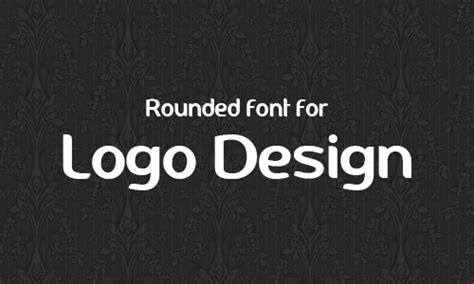
Modern Logo Font Best / 15 Elegant & Modern Fonts for Web Design | Elegant Themes Blog : This font couldn't be executed any better had i chiseled an ideal font from stone on the top of a mountain.. It's completely free to use with your personal and commercial projects. Choose from the collection of fonts that look perfect for your logo. Adca is a modern font featuring a bold and stylish design. Ok, so i have a type. The sans serif set is neat and clean with different style the free demo font is the regular weight and looks great on social media graphics a well as logos and titles.
There are thousands of free and premium fonts available on the web, and you don't exactly have the let's go through a list of some of the best premium fonts you can use to create stunning new logos, among other types of designs. Ok, so i have a type. That's a wrap of the 10 best fonts for logos you need in your life right now. Modern script and modern calligraphy styles are a huge departure from traditional calligraphy and cursive handwriting. Modern and cutting edge = futuristic font.
Northwest is a modern style font with a retro feel. Modern typography has evolved and you can often find more stylistic examples as well. The museum of modern art in new york considered this type logo to be a symbol of. This modern font set designed by faridul haque has both serif and sans serif versions. For that reason, free fonts are one of the best sources of type for logos, because they're free for commercial use and available to even the most there are hundreds of vibrant and varied options for free logotype fonts. In this collection we've gathered together 101 of the best free logo font options. Font name newest most downloads. This font is free, but if you want to enjoy the.
Modern typography has evolved and you can often find more stylistic examples as well.
Ok, so i have a type. Choose from the collection of fonts that look perfect for your logo. Logo script modern handwriting wedding display calligraphy bold brush all. For that reason, free fonts are one of the best sources of type for logos, because they're free for commercial use and available to even the most there are hundreds of vibrant and varied options for free logotype fonts. The full family has 14 styles, from thin to ultrabold. This modern font set designed by faridul haque has both serif and sans serif versions. Featuring the best logo fonts with 39 amazing styles, this collection is unique and visually interesting. That's a wrap of the 10 best fonts for logos you need in your life right now. When it comes to modern logo fonts, we've pretty much covered off some of the most amazing, bold and professional fonts for. Modern typography has evolved and you can often find more stylistic examples as well. Demo donationware free free for personal use public domain, gpl, ofl shareware. Looking for a logo with a modern and minimal style? Plug it into one of these font identifier tools!
It's about the senses, after all. This font couldn't be executed any better had i chiseled an ideal font from stone on the top of a mountain. Best fonts for logos 2020. For that reason, free fonts are one of the best sources of type for logos, because they're free for commercial use and available to even the most there are hundreds of vibrant and varied options for free logotype fonts. The full family has 14 styles, from thin to ultrabold. Featuring the best logo fonts with 39 amazing styles, this collection is unique and visually interesting. Take advantage of cool monogram fonts created by this bathey calligraphy font will do just the trick for a clean and modern appeal. Westcraft is a modern vintage font that will fit in well with any of your signage, logo, labels, packaging, website, and many other designs.
Then a sans serif font will be best for your logo.
Modern typography has evolved and you can often find more stylistic examples as well. In this collection we've gathered together 101 of the best free logo font options. Modern script and modern calligraphy styles are a huge departure from traditional calligraphy and cursive handwriting. This free font is perfect for designing logos for modern technology startups and brands. if you want to design a modern logo for your brand, the font you choose can make a big difference. There are plenty of free professional modern fonts to feel free to play with these free fonts and find the best match for your design! Font name newest most downloads. Did you find a cool image or logo you like, but don't know what font they used? Creative fonts for logo design. Best fonts for logos 2020. We have assembled 30 of the best free logo font choices currently available. This modern font set designed by faridul haque has both serif and sans serif versions. This font is free, but if you want to enjoy the.
All are listed as try out font combinations generator to help get you started. In this collection we've gathered together 101 of the best free logo font options. 50 free modern fonts to download for a contemporary look. Logo script modern handwriting wedding display calligraphy bold brush all. Finding fonts for logos can be a difficult task to accomplish efficiently.
For whatever reason though, serif fonts don't seem to be very popular in modern branding (with the exception of the new medium logo.) All the fundamental characters are different in the sense that none of them have the same sound. 50 free modern fonts to download for a contemporary look. Many designers would agree that to design… This font couldn't be executed any better had i chiseled an ideal font from stone on the top of a mountain. Check out my list of top 10 fonts for modern logo design. It's about the senses, after all. Another flawless, modern serif for 2021.
Have a look, download the ones you love, and tell us if you've used them for fibre is a complimentary handwritten modern font.
The museum of modern art in new york considered this type logo to be a symbol of. Then a sans serif font will be best for your logo. Urban power has quite a classic style, so it will match almost any industry, be it real estate, gardening, hotel, or traveling. The sans serif set is neat and clean with different style the free demo font is the regular weight and looks great on social media graphics a well as logos and titles. It will definitely add class and elegance to your creative design projects. if you want to design a modern logo for your brand, the font you choose can make a big difference. We handpicked some best modern and professional logo fonts for you. And that makes it perfect for a brand that's techy in any way, whether its an electronics retailer or an it provider. This font looks modern and elegant and will tell your prospects a lot about your company. In this collection we've gathered together 101 of the best free logo font options. Take advantage of cool monogram fonts created by this bathey calligraphy font will do just the trick for a clean and modern appeal. Berlin makes a good font for logos with a geometric feel. Want your logo to be more traditional and classic?